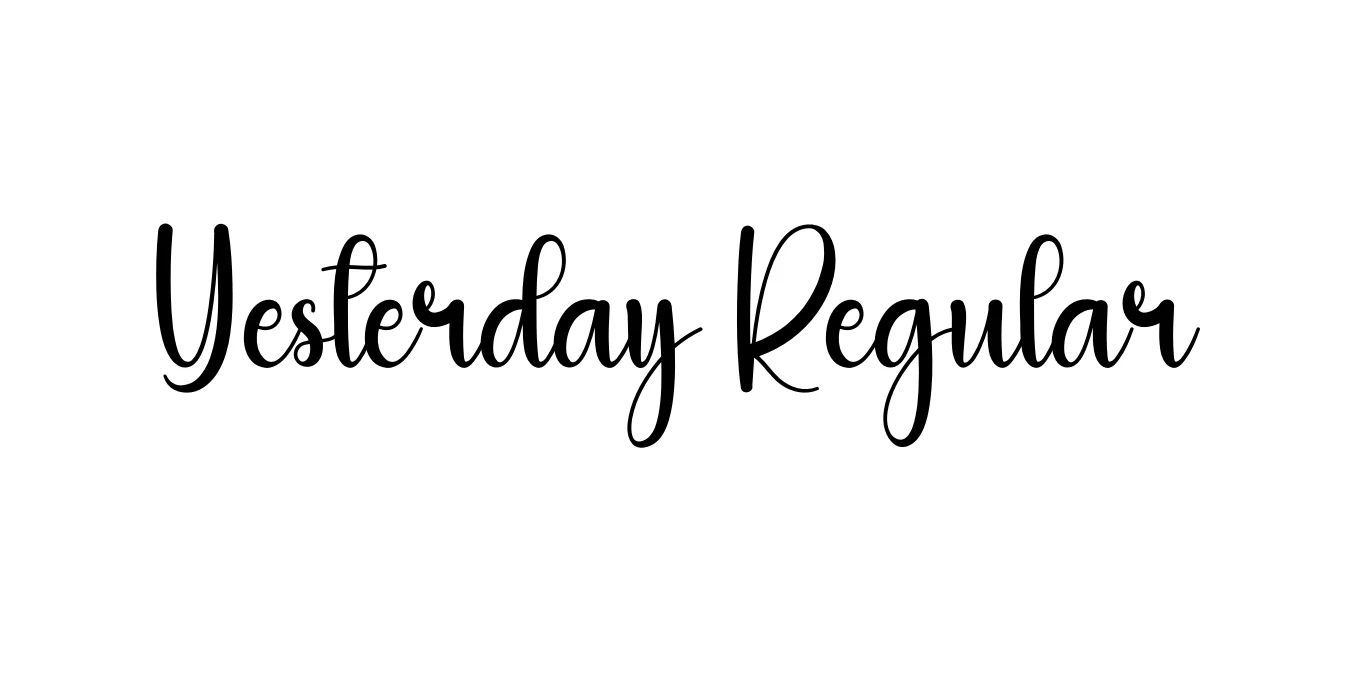
Yesterday Regular
Yesterday Regular is a beautifully crafted script typeface designed by the prolific Swedish type designer Mans Greback. It embodies a sophisticated and fluid aesthetic, drawing inspiration from classic calligraphy while maintaining a modern, clean execution that ensures legibility. The font is characterized by its graceful swashes and natural-looking connections between characters, giving it an authentic hand-drawn appearance that adds a personal touch to digital designs.
Released as a versatile tool for creative professionals, Yesterday Regular includes a comprehensive set of characters, including uppercase, lowercase, numerals, and punctuation. Its timeless design makes it particularly effective for high-end projects where elegance is paramount. Over the years, it has become a popular choice for designers seeking a balance between vintage charm and contemporary professional standards, often appearing in luxury packaging and editorial layouts.
Yesterday Regular Best Uses
Perfect for creating romantic invitations, save-the-dates, and elegant seating charts.
Ideal for luxury logos, signature-style branding, and sophisticated packaging design.
Great for aesthetic quotes, Instagram stories, and lifestyle blog headers.
Excellent for magazine mastheads, feminine headlines, and artistic pull-quotes.